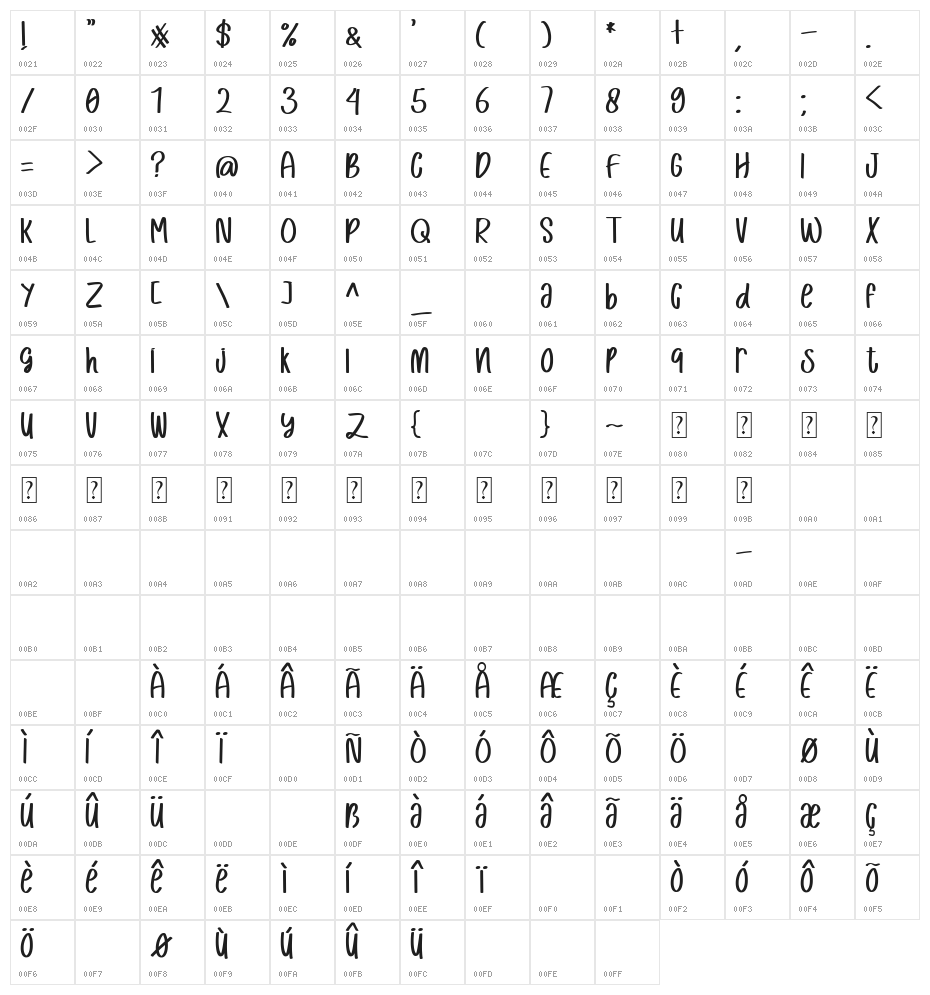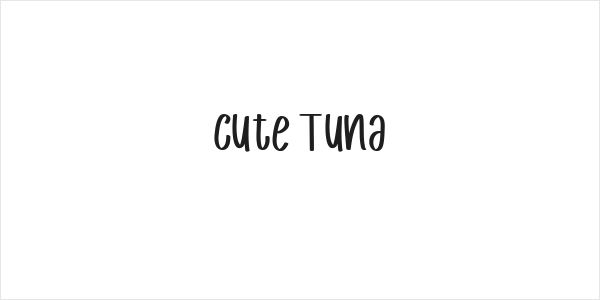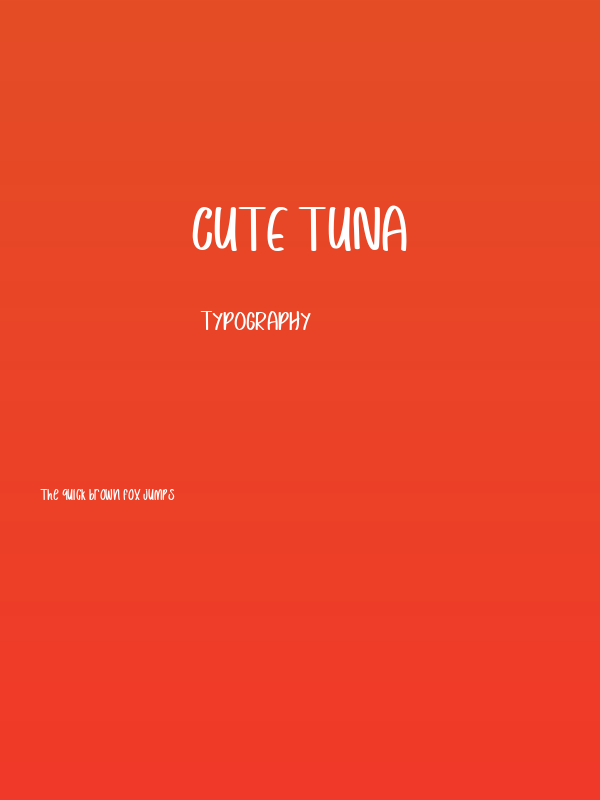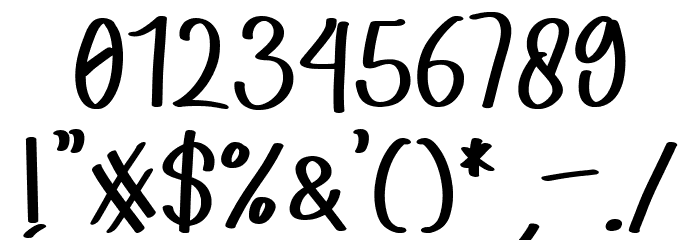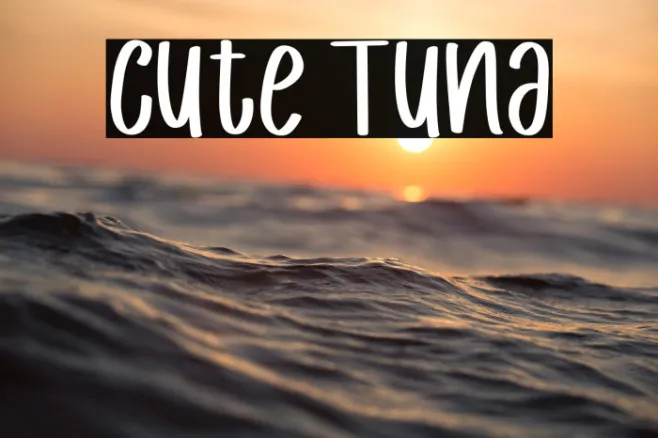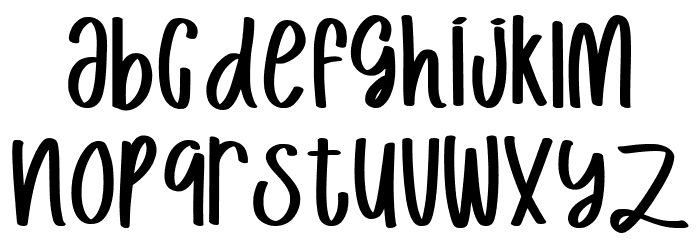
Cute Tuna Font
Cute Tuna Description
This playful and whimsical font features a handwritten style with a casual, friendly appearance. The letters are bold and rounded, giving them a soft and approachable feel. The strokes are consistent in thickness, providing a uniform look across all characters. The uppercase and lowercase letters maintain a cohesive style, with slight variations that add to the font's charm. Numbers and special characters are designed to match the overall aesthetic, ensuring versatility in various design projects. The font's informal nature makes it ideal for creative and fun applications.
| Proposed Projects | Ideal for children's books, greeting cards, playful branding, and social media graphics. |